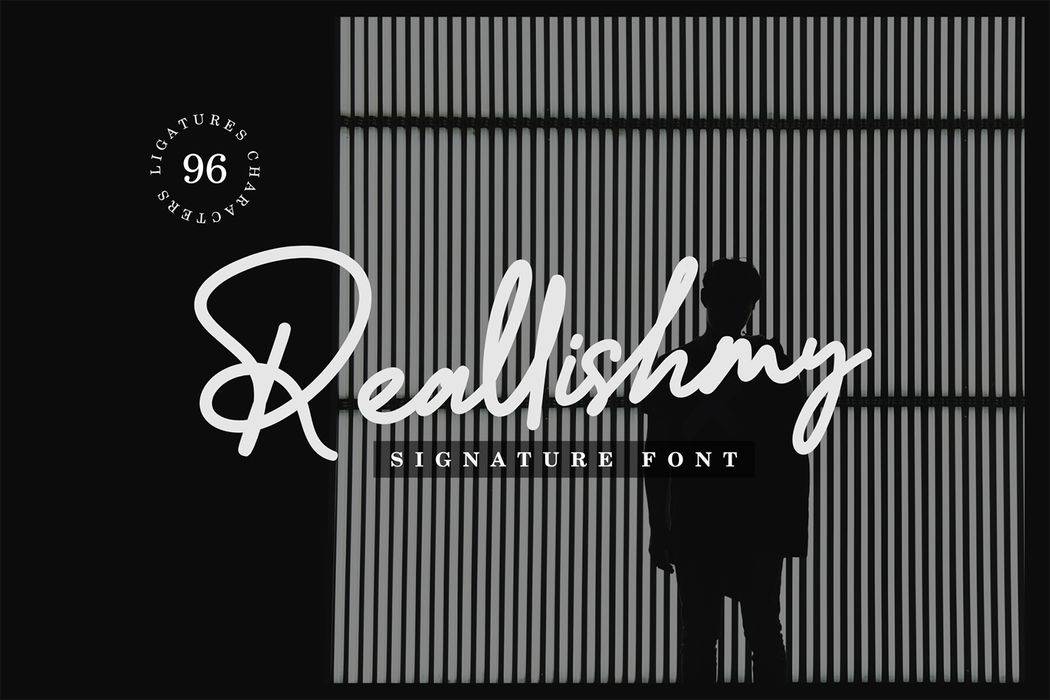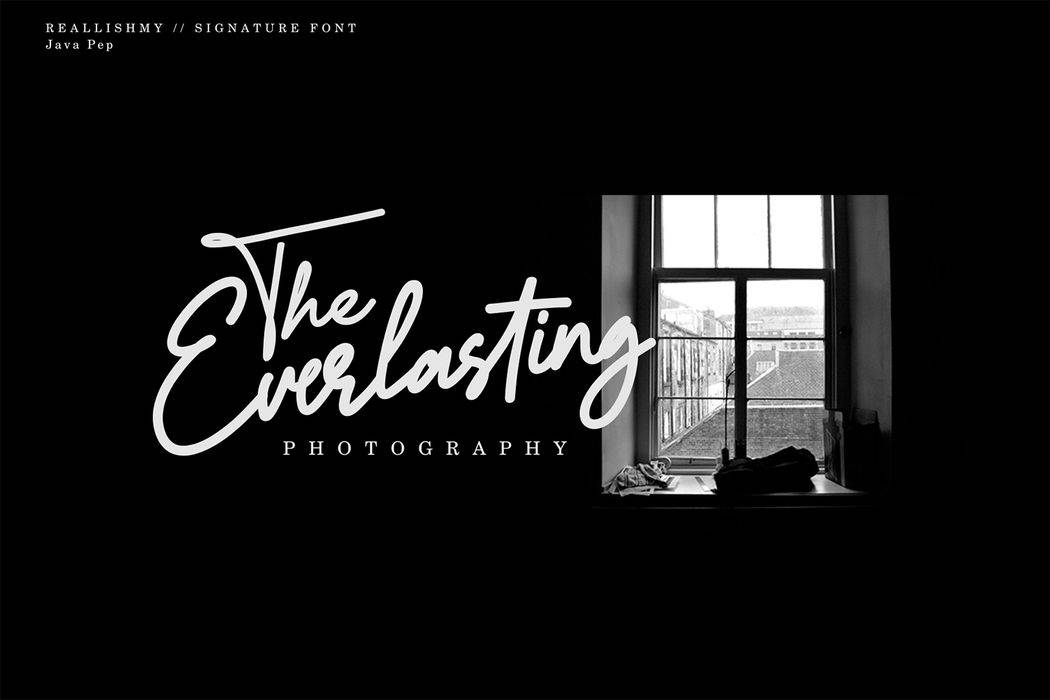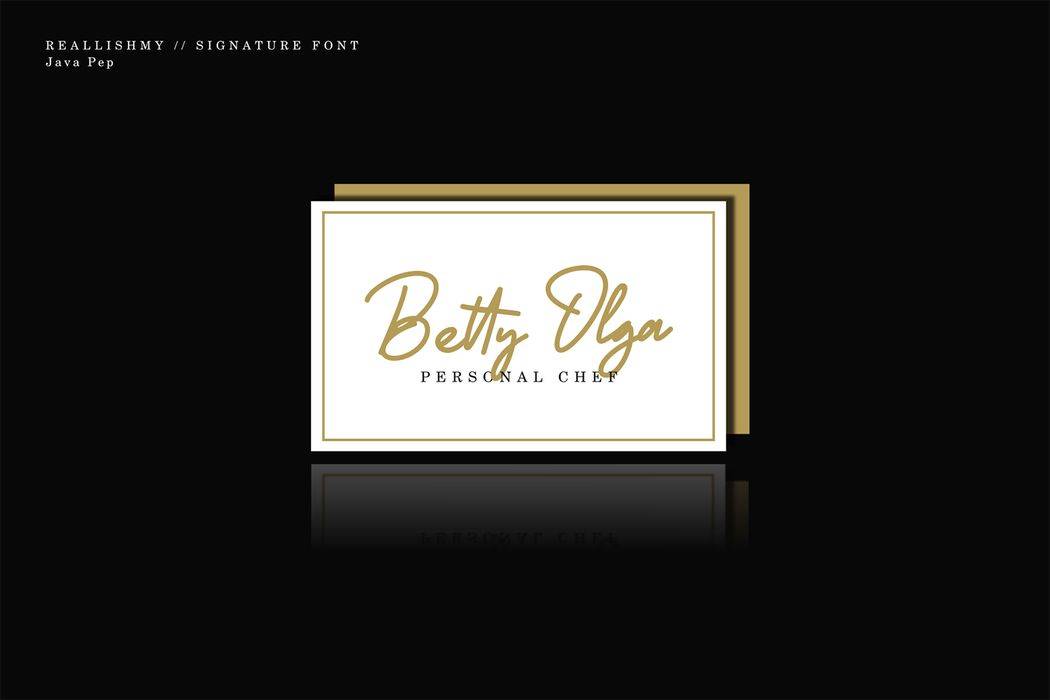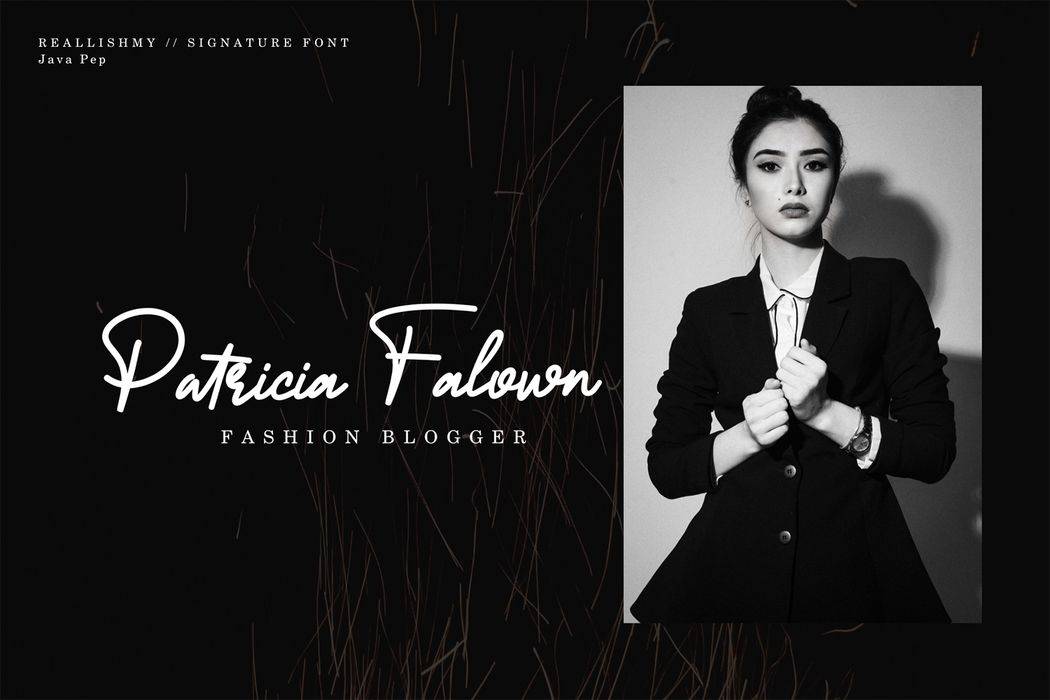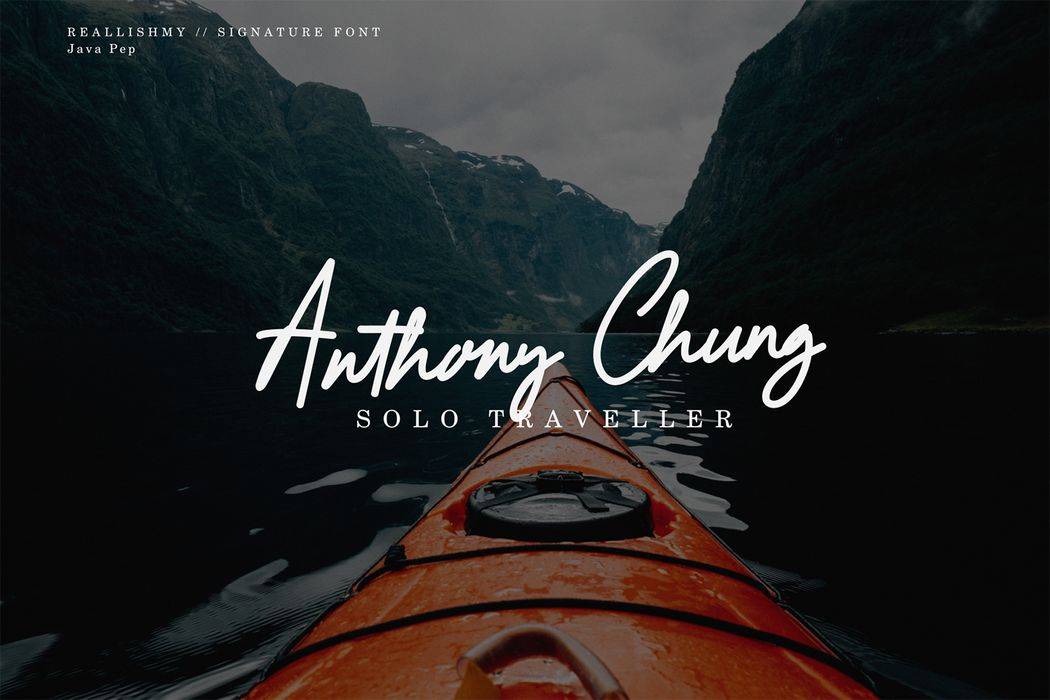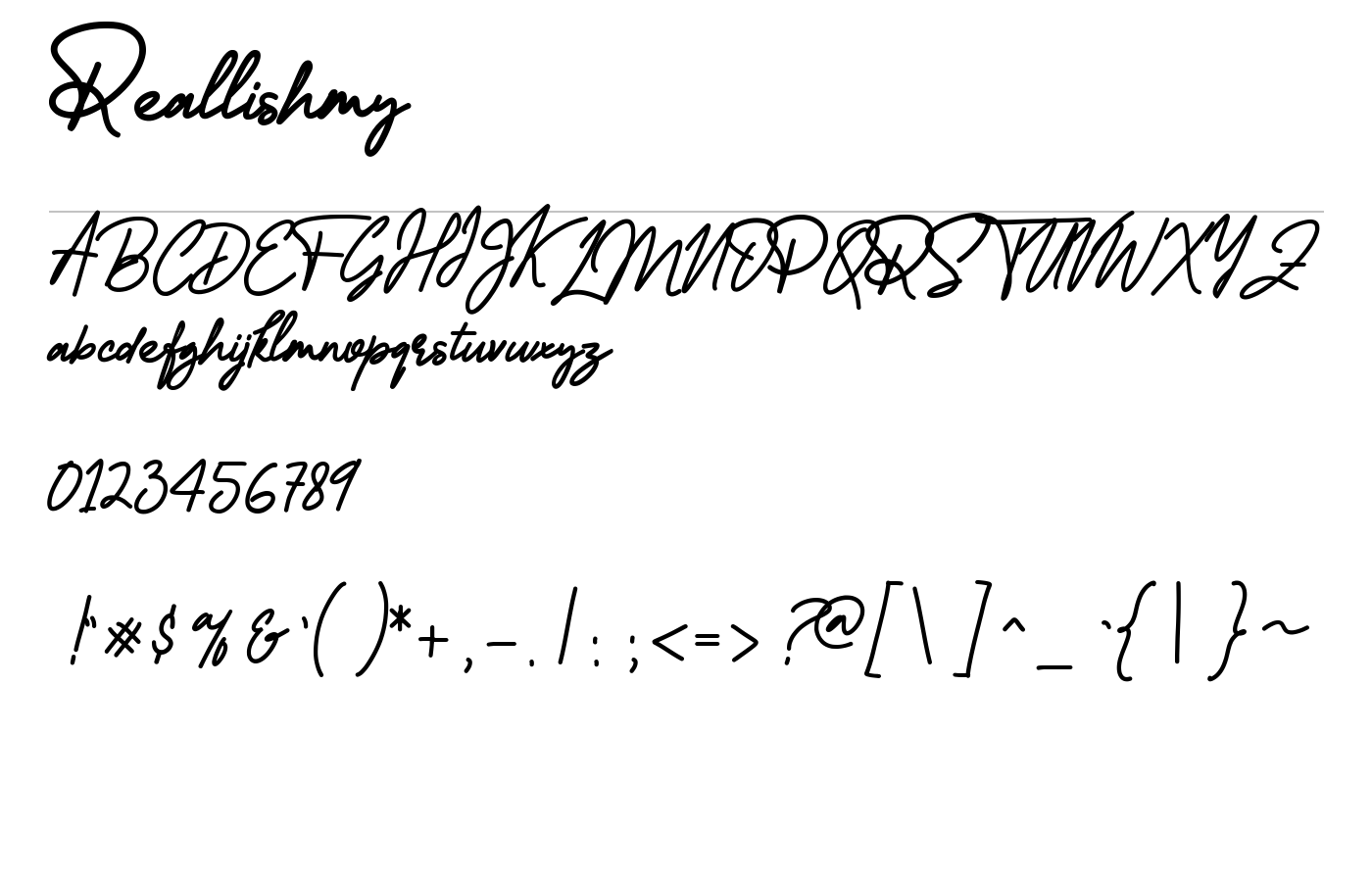
Reallishmy is a stylish, handwritten script font with a smooth, flowing quality that mimics natural cursive writing. Its elegant yet casual strokes make it perfect for personal branding, invitations, and creative projects where a friendly and approachable feel is desired. This font works well in headlines or decorative text, adding a touch of personality and warmth.
Reallishmy Font
About Reallishmy Font